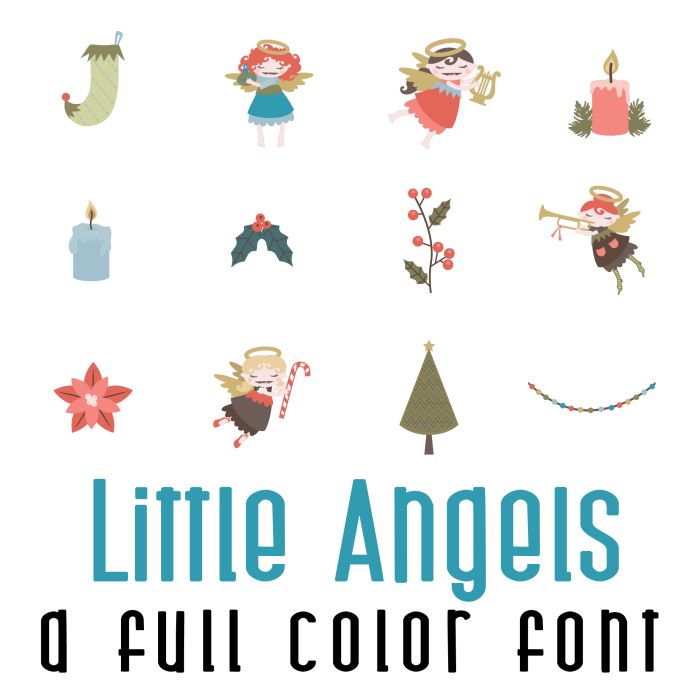
This fun full color font features 26 adorable angels and holiday elements. Perfect for cards, crafts, gifts, decor, planner stickers, scrapbook pages, classrooms and more!